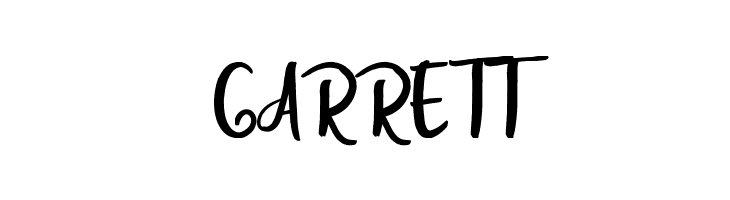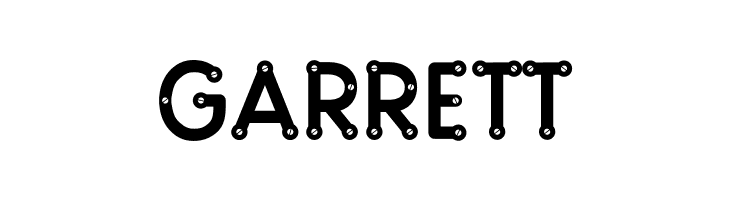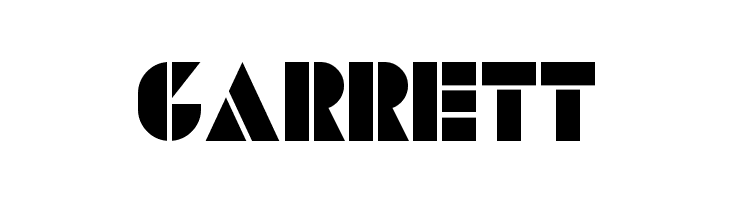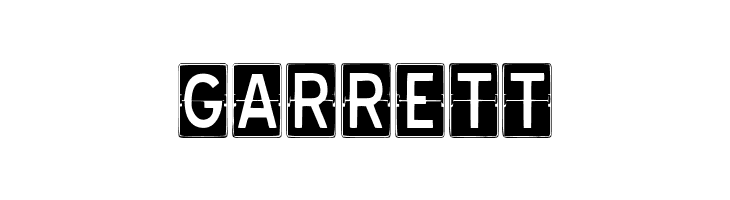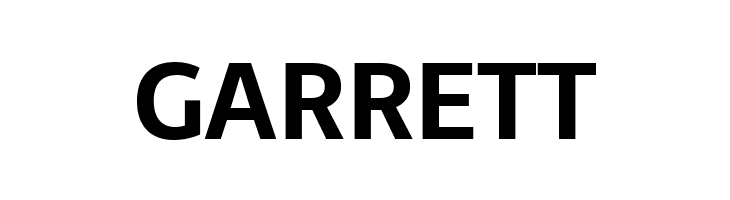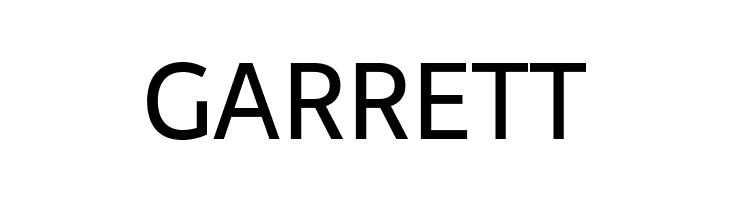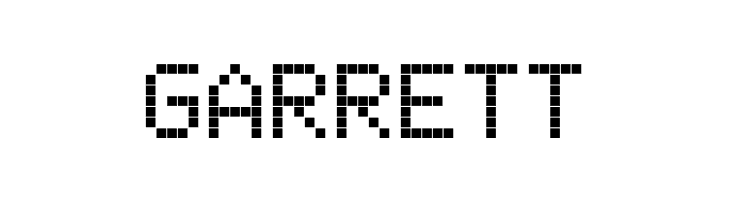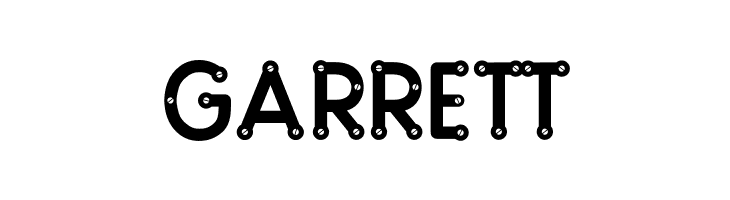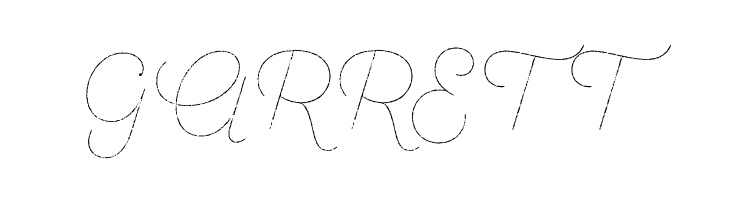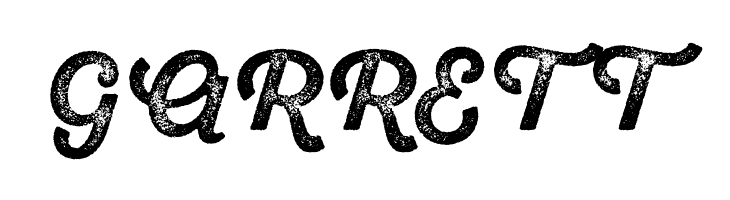
A modern, elegant font with geometric and humanist influences.
A playful, hand-drawn font with a whimsical and friendly style.
A bold, modern font with clean lines and geometric shapes.
A modern, geometric typeface with clean lines and a professional appearance.
A playful, handwritten font with a casual and whimsical style.
A clean, modern sans-serif font with consistent stroke width and excellent readability.
A modern sans-serif font with geometric shapes and uniform stroke width.
A bold, brush-style font with dynamic and expressive strokes.
A bold, condensed font with a shadow effect for impactful designs.
A bold, hand-drawn font with thick, uneven strokes and a playful, artistic style.
A playful, handwritten font with dynamic and irregular strokes.
A segmented, geometric font inspired by classic LCD digital displays.
A geometric, segmented font inspired by 14-segment LCD displays.
A digital-style font resembling a 14-segment LCD display with a geometric and technical look.
A 14-segment, italic, condensed font with a digital, geometric style.
A modern, italic, 14-segment LCD display-inspired font with a geometric and digital aesthetic.
A bold, modern font with unique cross motifs in each character.
A bold, geometric font with a futuristic and tech-inspired design.
A bold, geometric stencil font with sharp angles and clean lines.
A geometric stencil-inspired font with bold lines and sharp angles.
A bold, geometric stencil font with high contrast and decorative elements.
A bold, three-dimensional serif font with pronounced shadows.
A bold, italic, and condensed font with a modern and dynamic style.
A bold, condensed font with a modern and clean aesthetic, perfect for impactful headlines.
A bold, gothic-inspired font with sharp, angular edges and intricate details.
A bold, italicized 3D font with a futuristic and dynamic style.
A bold, geometric font with a 3D outlined effect and a futuristic, mechanical style.
A bold, geometric italic font with tight spacing and dynamic style.
A bold, geometric font with a futuristic, industrial style.
A bold, geometric, and condensed font with a modern, stencil-like appearance.